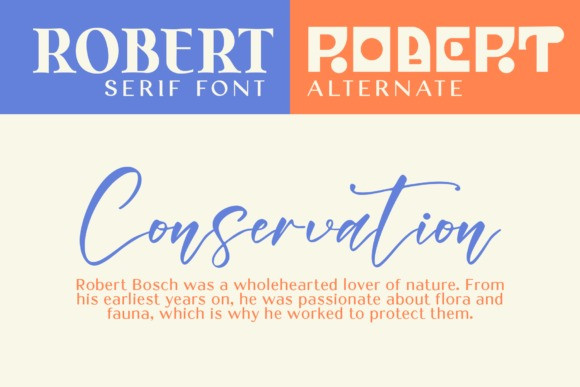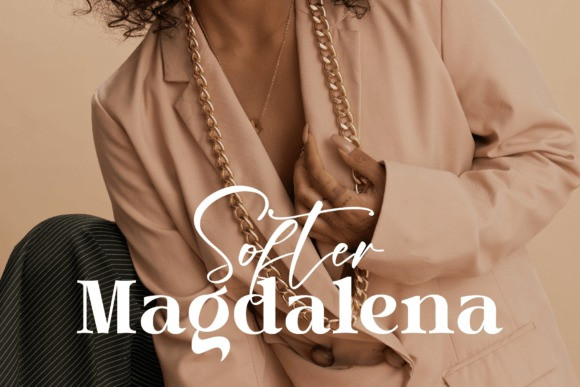
Tabernae Montana Font
Tabernae Montana Font is a typographic system that brings together all the features to undertake any fashion magazine-oriented project. The font harmoniously blends different styles into a single big family, which consists of uppercase and small caps family.Tabernae Montana also comes with a Script font. If you want to give your designs a different untidy look, we provide display alternate and ligature in serif font.